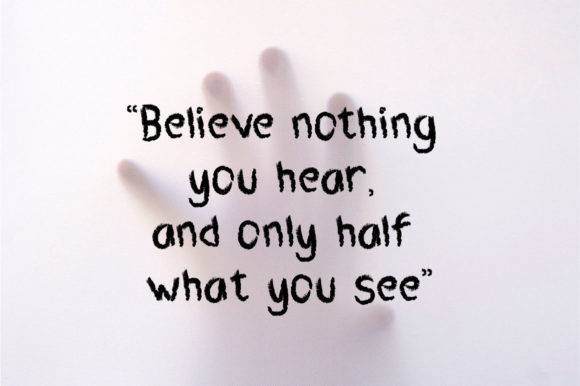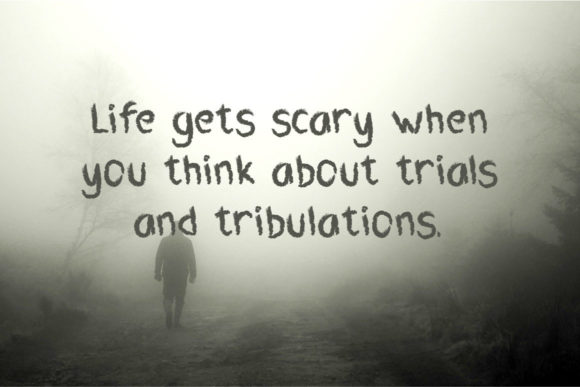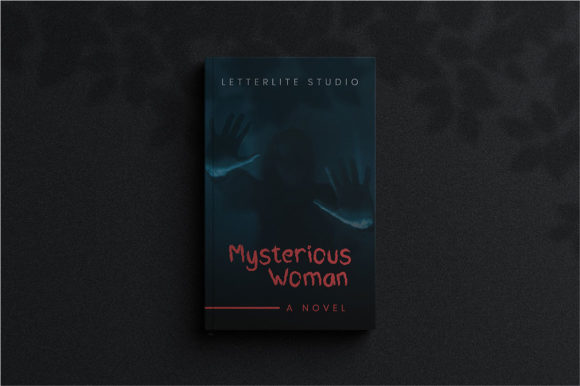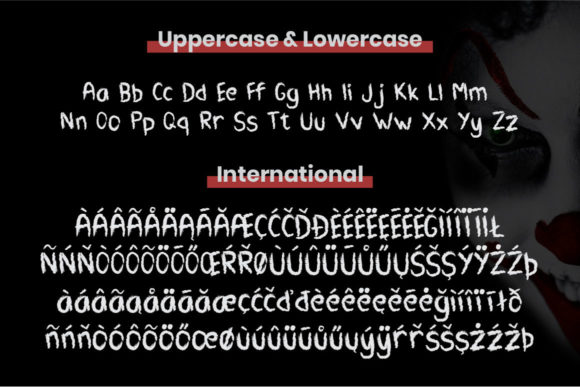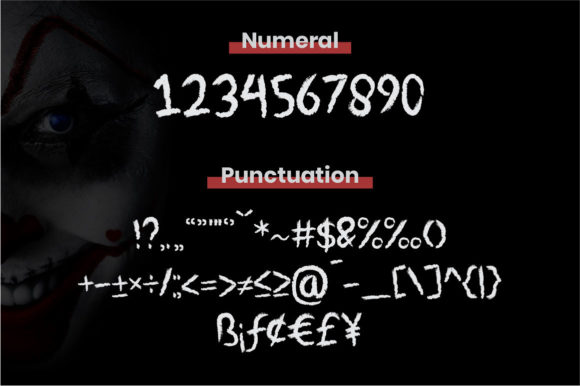
Unleash the Spooky Spirit with Gutheng Font
It’s that time of the year when creativity knows no bounds, and the air is filled with an eerie sense of excitement. You’re probably thinking of the perfect font to spice up your October designs or Halloween parties. If you’re still on the lookout, we’ve got just the thing for you.
Meet Gutheng Font, a chilling display font that’s sure to send shivers down the spine. Its cool and horror-inspired design makes it the perfect addition to any spooky-themed project. Whether you’re a graphic designer, a party planner, or just someone who loves to get creative, Gutheng Font is a valuable addition to your toolkit.
Gutheng Font Key Features
- Unique Characteristic: Gutheng Font features a unique blend of modern and traditional design elements, making it suitable for a wide range of creative projects, from corporate branding to artistic expressions.
- Kerning and Ligatures: Gutheng Font includes advanced kerning and ligature pairs, ensuring smooth and professional-looking text rendering in various font sizes and combinations.
Gutheng Font Review
I recently had the chance to work with Gutheng Font, and I must say it’s a mixed bag. Here are my thoughts.
- Unique aesthetic: Gutheng Font has a distinct, quirky feel to it that can add a lot of character to your designs.
- Good for creative projects: Its unconventional style makes it perfect for projects that need a bit of flair, such as branding for a boutique or a creative agency.
- High-quality vectors: The font’s vectors are crisp and well-designed, making it easy to work with.
- Limited versatility: Gutheng Font may not be the best choice for more formal or traditional projects, as its style can be too playful for those settings.
- Difficult to read at small sizes: The font’s unique characteristics can make it harder to read when used at small font sizes.
- No language support: Gutheng Font may not support certain languages or character sets, which can be a limitation for global projects.
Gutheng Font is a great choice for designers who want to add a bit of whimsy to their projects. However, its limitations may make it less suitable for more formal or complex projects. Overall, I’d give it 3.5 out of 5 stars.
The Gutheng Font is particularly useful for creating unique and eye-catching designs in the following areas:
– Infographics and visualizations
– Brochures and marketing materials
– Digital signage and displays
Getting the Most Out of Gutheng Font
To get the most out of the Gutheng Font, try experimenting with different font sizes, styles, and combinations. You can also use the font in combination with other design elements, such as graphics and images, to create a visually appealing composition.
Can I use the Gutheng Font for logos and branding, or is it only suitable for body text?
The Gutheng Font is designed to be a versatile and highly legible typeface, making it suitable for use in both body text and display contexts, including logos and branding. However, we recommend using the font in its bold weight for display purposes, and reserving the lighter weights for body text. Additionally, you may want to consider customizing the font